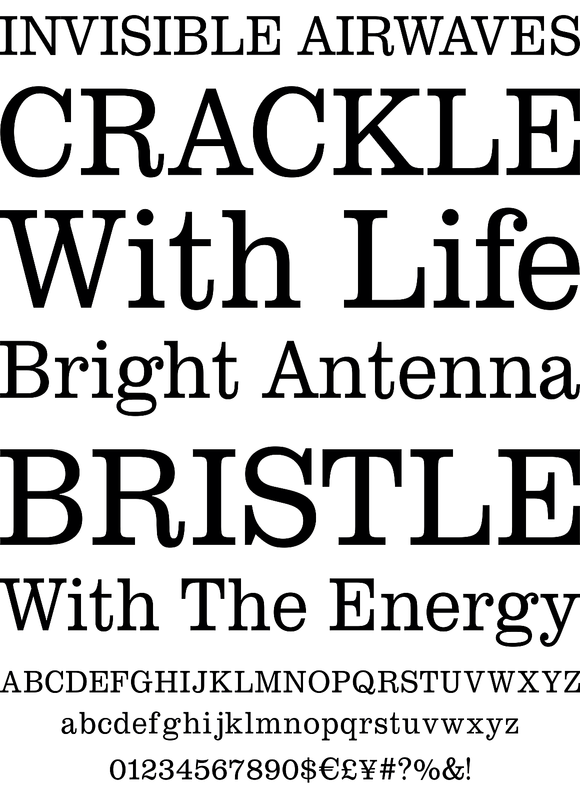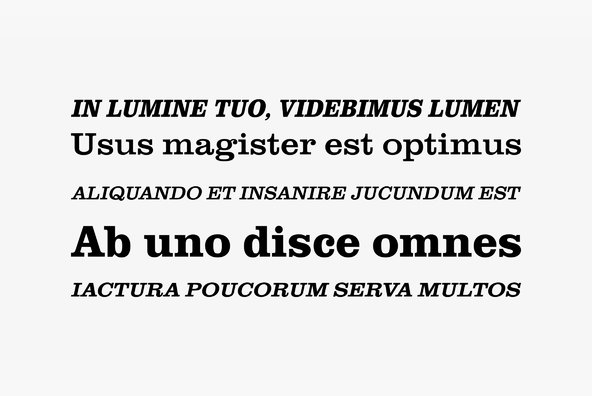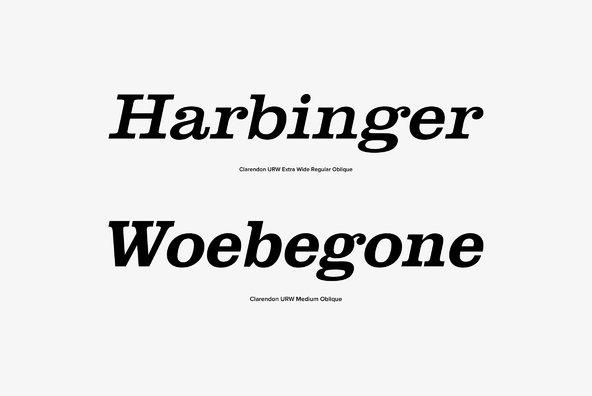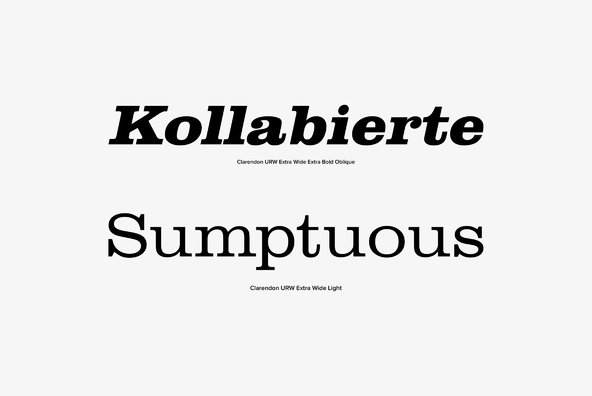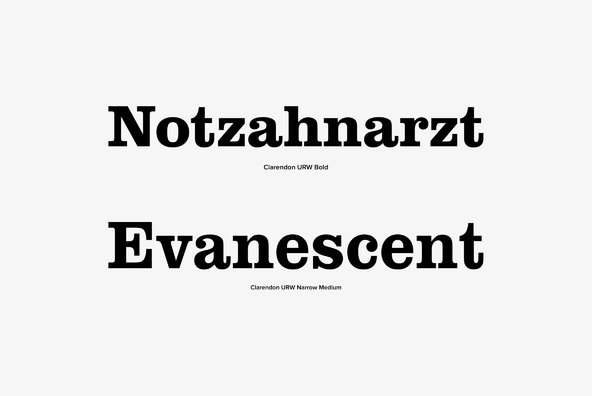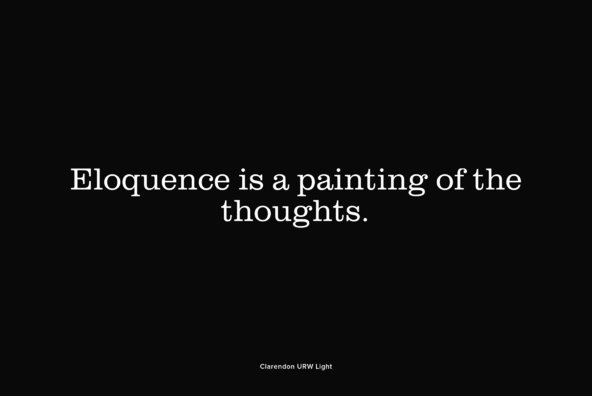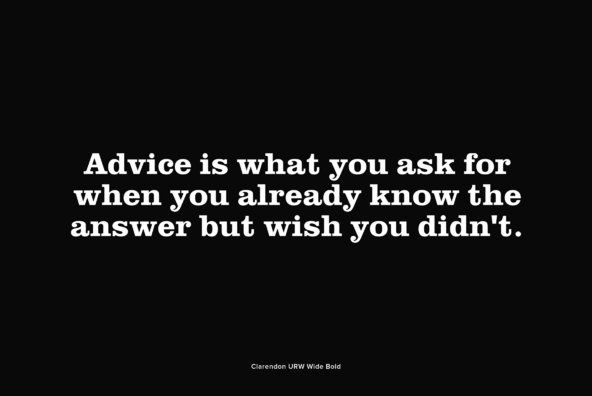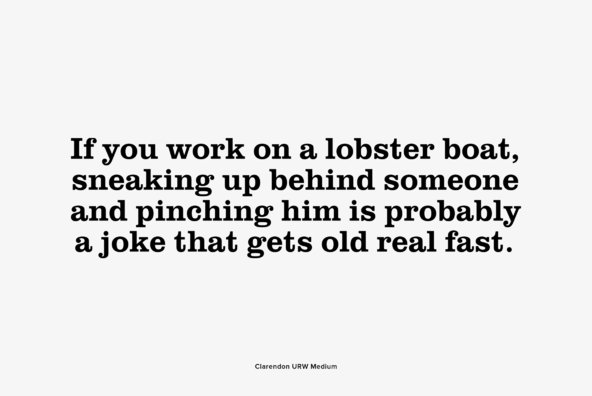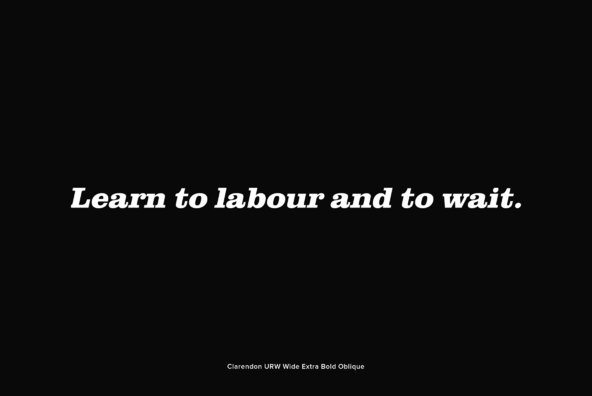
URW Clarendon
Clarendon is an English serif typeface that was originally created in England by Robert Besley for the Fann Street Foundry in 1845. Due to its popularity, Besley registered the typeface under Britain's Ornamental Designs Act of 1842. The patent expired three years later, and other foundries were quick to copy it. Clarendon is considered the first registered typeface, with the original matrices and punches remaining at Stephenson Blake and later residing at the Type Museum, London. It was named after the Clarendon Press in Oxford.
The font was used extensively by the government of the German Empire for proclamations during World War I, and was also common in wanted posters of the American Old West. Clarendon can also be used for the logotypes of corporations such as Sony and Wells Fargo.